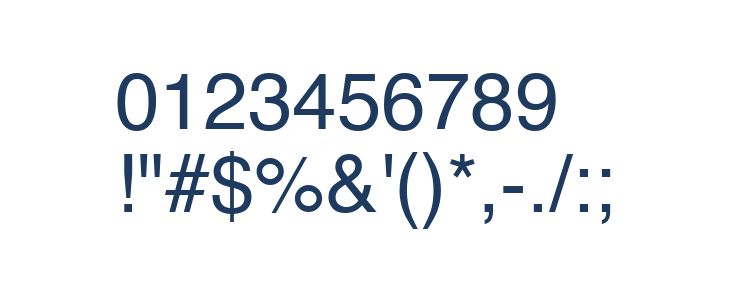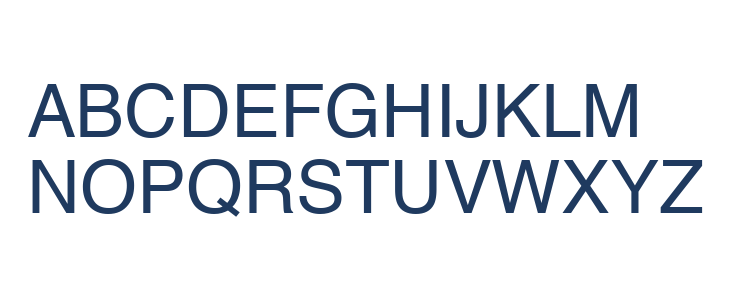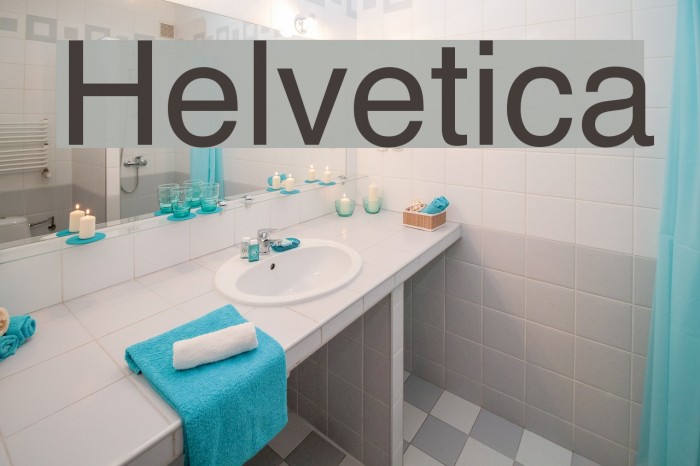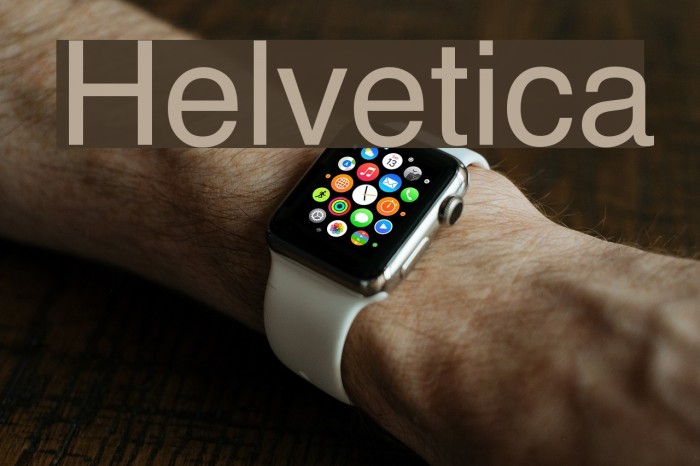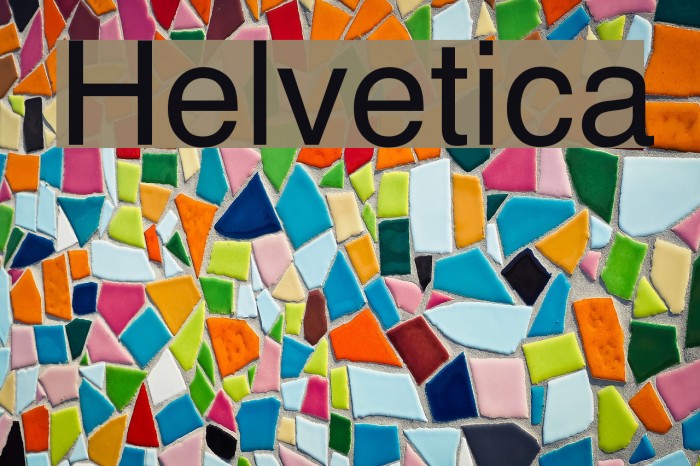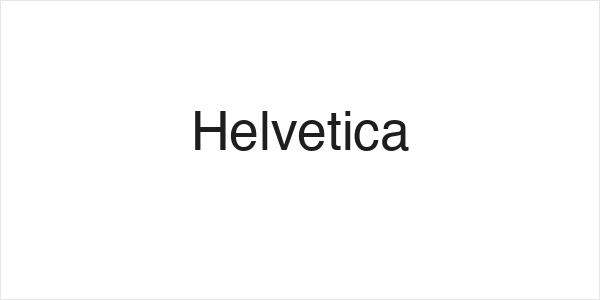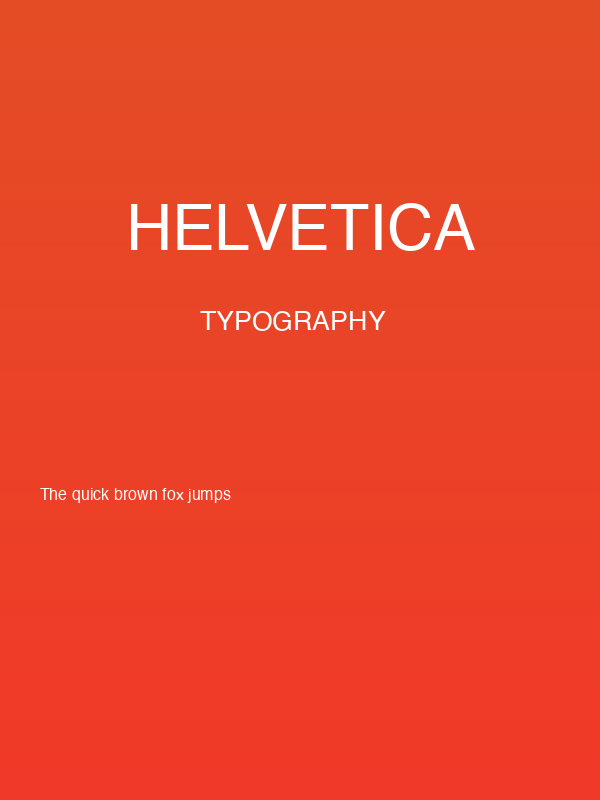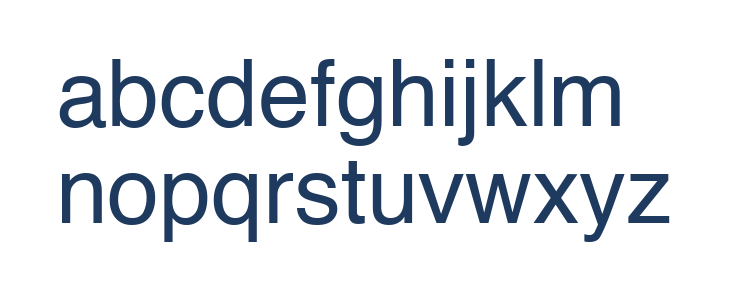
Helvetica Font
Helvetica Description
This font is a classic example of a sans-serif typeface, known for its clean and modern appearance. It features uniform stroke widths and a neutral, yet friendly design. The characters are well-proportioned, with a focus on readability and clarity. The uppercase letters are bold and commanding, while the lowercase letters maintain a consistent height, enhancing legibility. The numerals are straightforward and align well with the overall aesthetic, making them suitable for a wide range of applications. The special characters are designed to complement the primary alphabet, maintaining the font's cohesive look.
| Proposed Projects | Ideal for corporate branding, signage, web design, and editorial content where clarity and professionalism are paramount. |